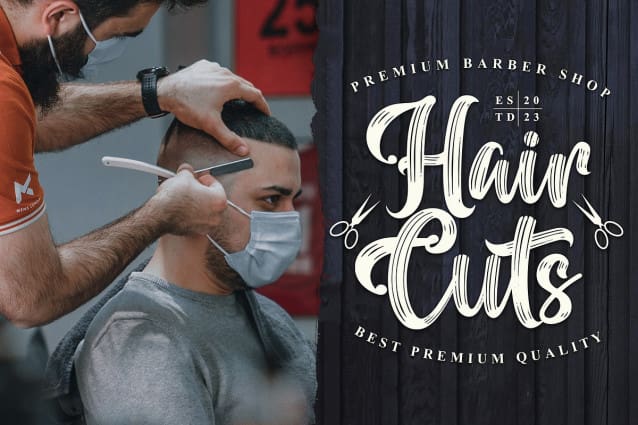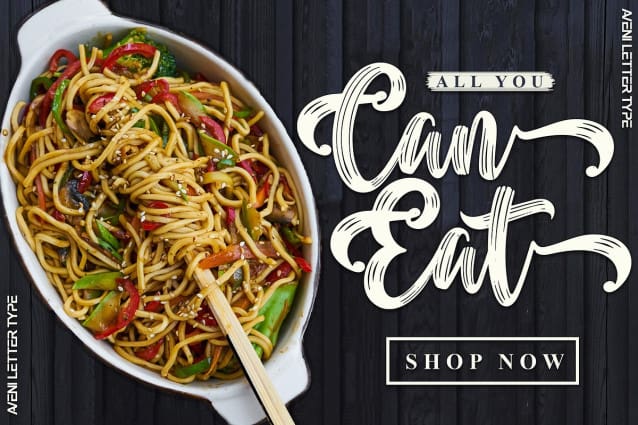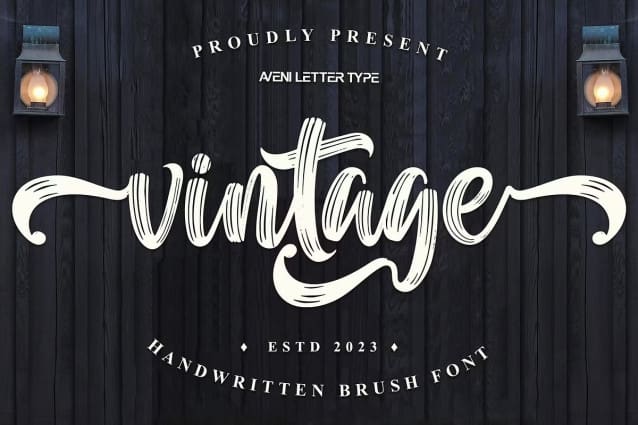
Vintage Brush Font
Vintage Brush Font is a handwritten font that uses a vintage style brush but is still elegant and has very clean letter spacing. This font will look great in many projects, for example, you can use it for clothing branding, product packaging, posters, merchandise, store signs, social media, wedding invitations and more!